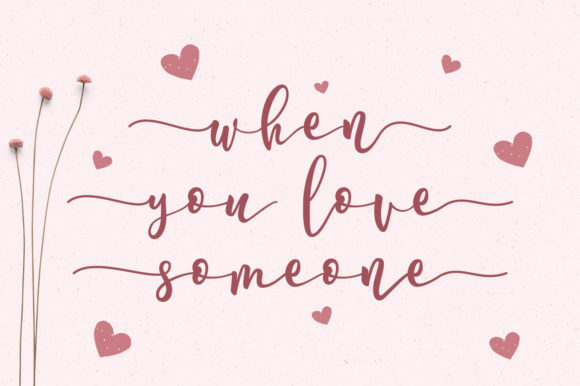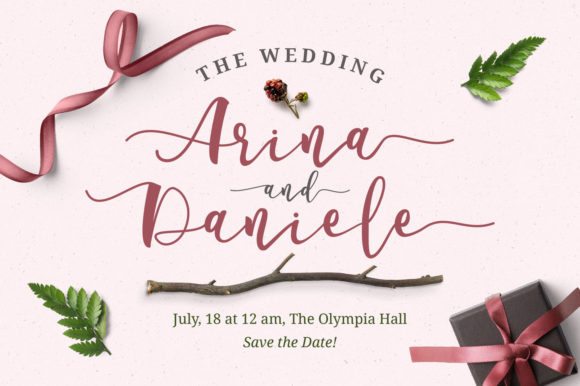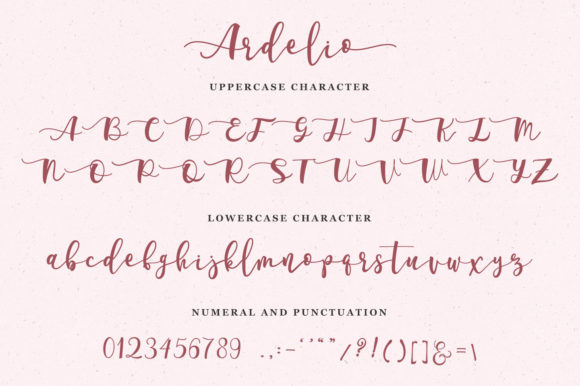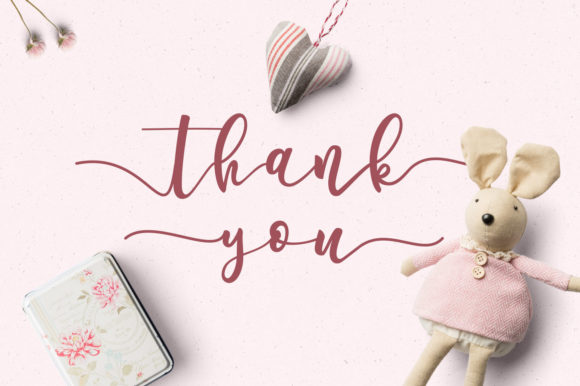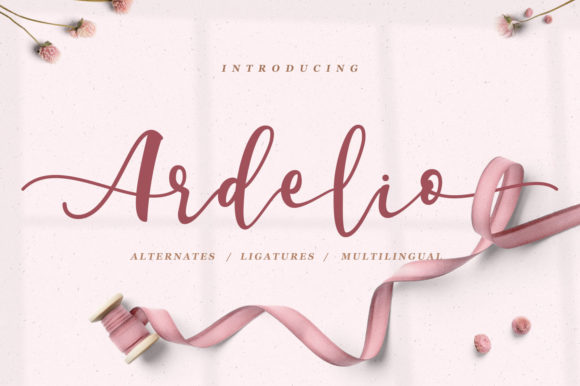
The Designer’s Delight: Ardelio Script Font
I still remember the time I was working on a branding project for a boutique hotel, and I was struggling to find the perfect font to capture the essence of their luxurious yet cozy vibe. The client was specific about wanting something that felt handwritten, elegant, and unique. That’s when I stumbled upon Ardelio Script, and it was love at first sight! 💕
Ardelio Script is a stunning handwritten font with fantastic swashes that can add a dash of authenticity to any design idea. In this article, I’ll share my experience with this beautiful font, its features, and how to make the most of it in your designs.
- ✨ Elegant and flowing script with beautiful swashes
- 🎨 Versatile and can be used for a variety of design projects, from branding to wedding invitations
- 🖌️ Compatible with OpenType features, allowing for advanced typography control
While Ardelio Script is an amazing font, there are a few things to keep in mind:
- 🤔 Some swashes might not work well with certain letter combinations, requiring manual adjustment
- ⚠️ The font might look too ornate for very short texts or headings, consider a simpler font for those cases
The Story Behind Ardelio Script
Ardelio Script was designed with the intention of creating a beautiful, elegant font that captures the essence of handwritten scripts. The designer aimed to create a font that feels authentic, yet sophisticated and versatile. While the exact story behind the font’s creation might be unknown, it’s clear that Ardelio Script has been crafted with love and attention to detail.
Q: Is Ardelio Script suitable for body text?
A: While Ardelio Script is highly legible, it’s recommended to use it for headings or titles rather than body text. Its ornate nature might make longer texts harder to read.
Q: How do I access the swashes in Ardelio Script?
Q: Can I combine Ardelio Script with other fonts?
A: Yes, Ardelio Script can be paired with other fonts to create a unique look. Experiment with different font combinations to find the perfect match for your design.